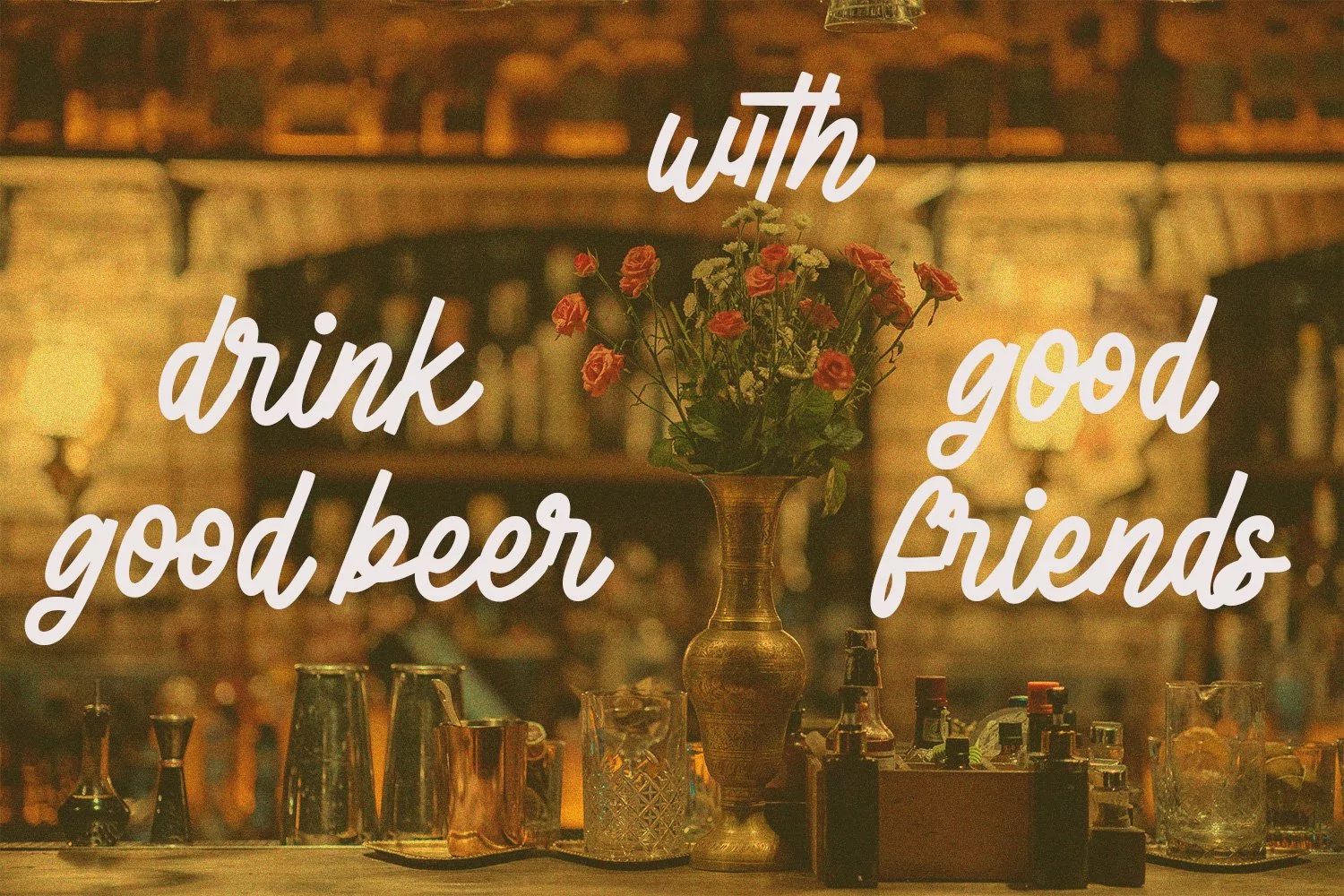
La flexes is a fancy handwritten script font. With bold consist stroke, fun character with a bit of ligatures. To give you an extra creative work. La flexes font support multilingual more than 100+ language. This font is good for logo design, Social media, Movie Titles, Books Titles, a short text even a long text letter and good for your secondary text font with sans or serif. Make a stunning work with La flexes font.